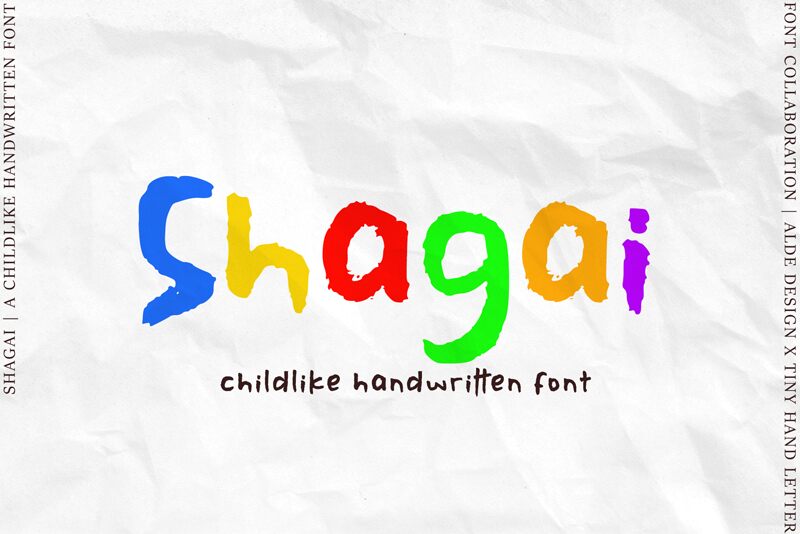
Shagai
Shagai is a childlike display font. It's perfect for cards, poster, blog design, custom art, quote, and many more!
This font is a collaboration between Alde Design and Tiny Hand Letter